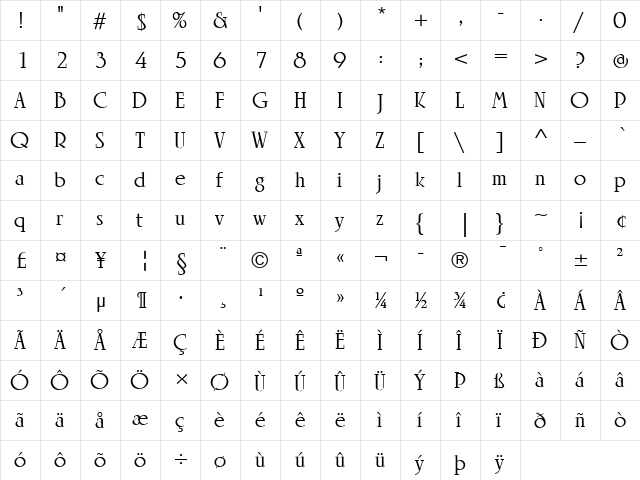
LTRowena Medium Regular
Design Context for LTRowena Medium Typeface
LTRowena Medium is a composed and adaptable typeface that performs quietly and consistently across a wide range of design contexts.